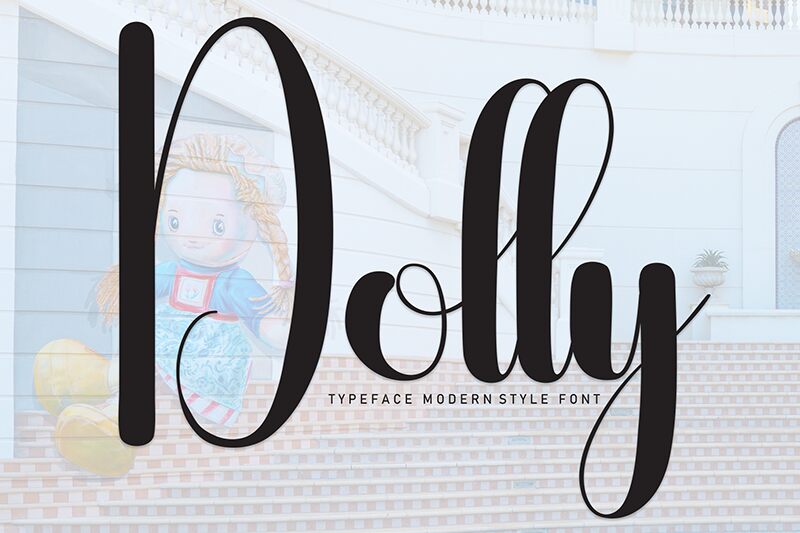
Dolly
Dolly font is a calligraphy typeface by Andi Moz. This free handwritten font is elegant and fluid, with the letters presenting a light appearance thanks to their condensed style. You’ll find decorative elements that add a graceful touch to Dolly, making the typeface characterized by its signature style and charm.
With such remarkable features at hand, you can use Dolly for signatures, business cards, invitations (weddings mostly), RSVPs, thank you cards, typography artworks (logos included), inspirational quotes or poems, diary entries or journal covers/headers among other items.